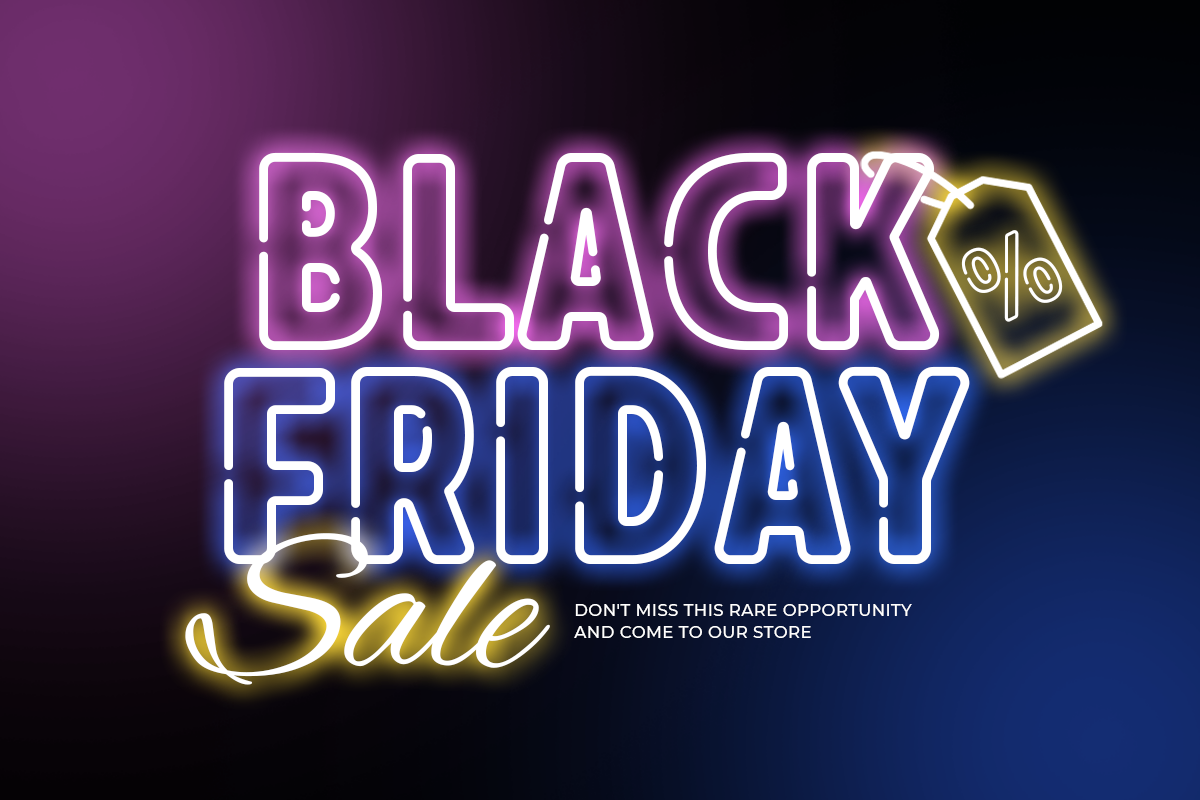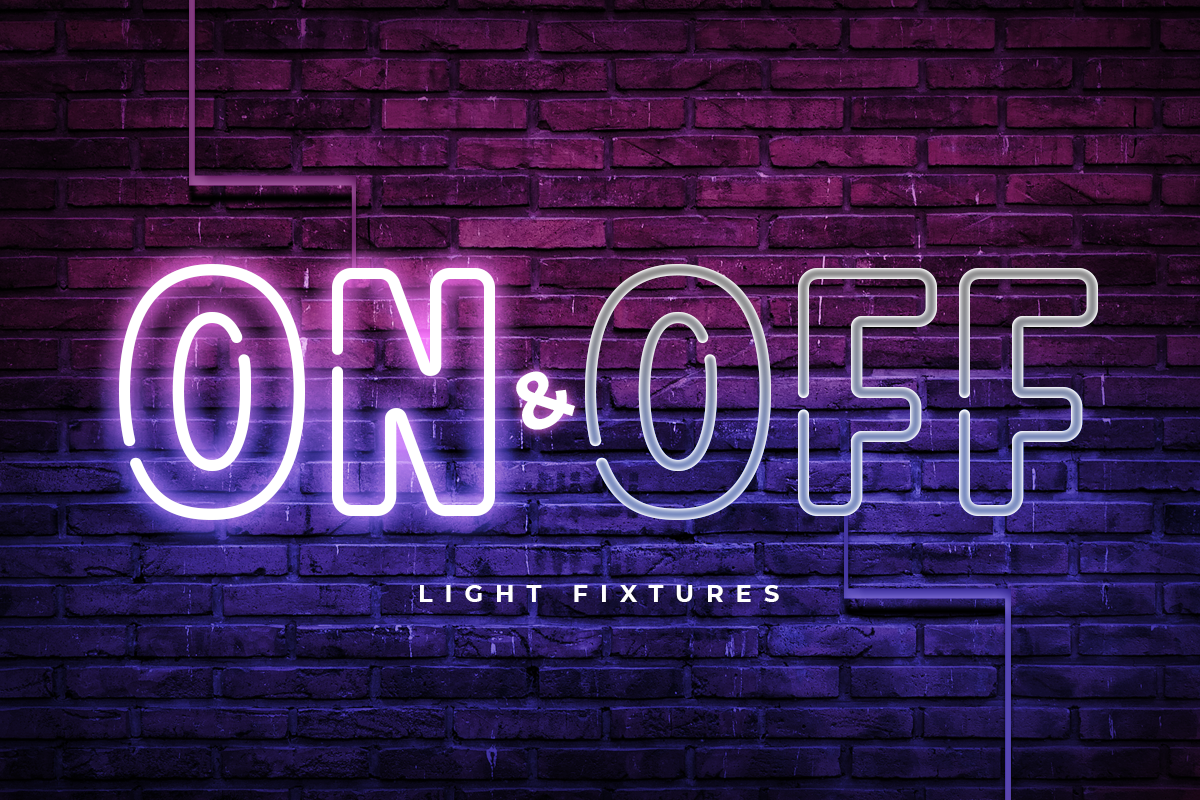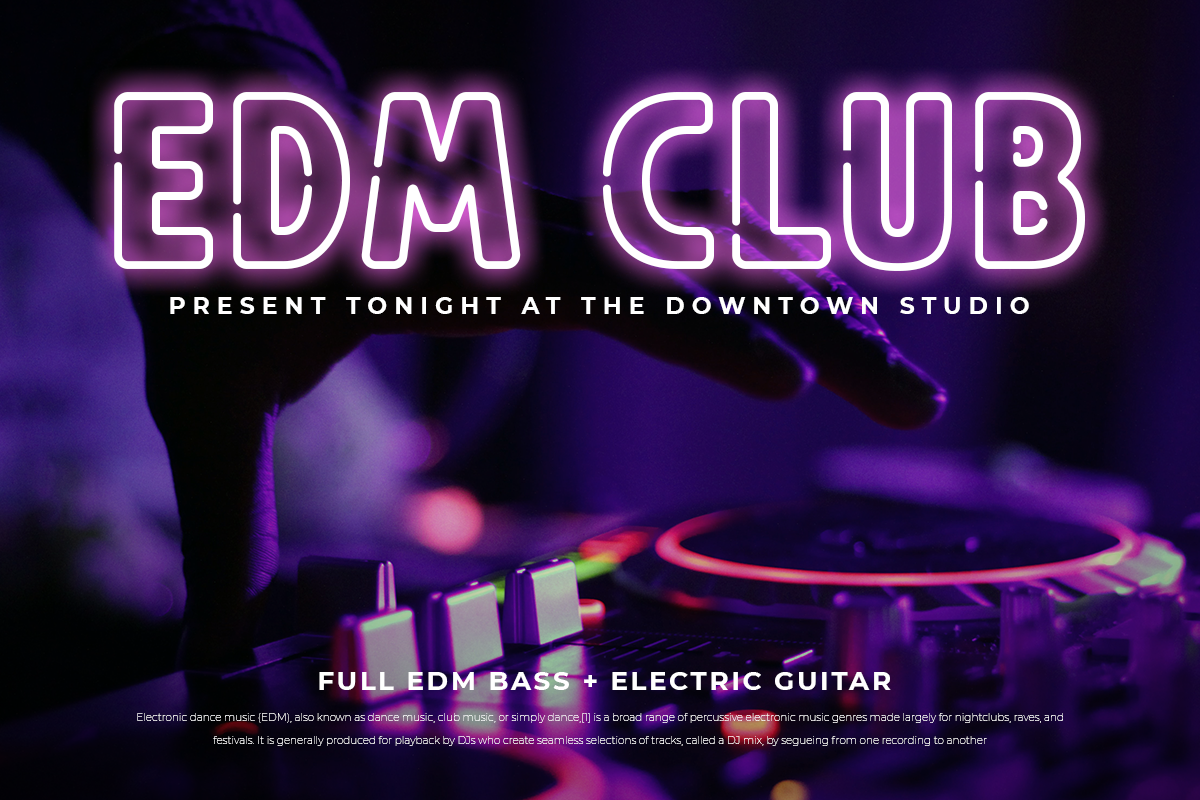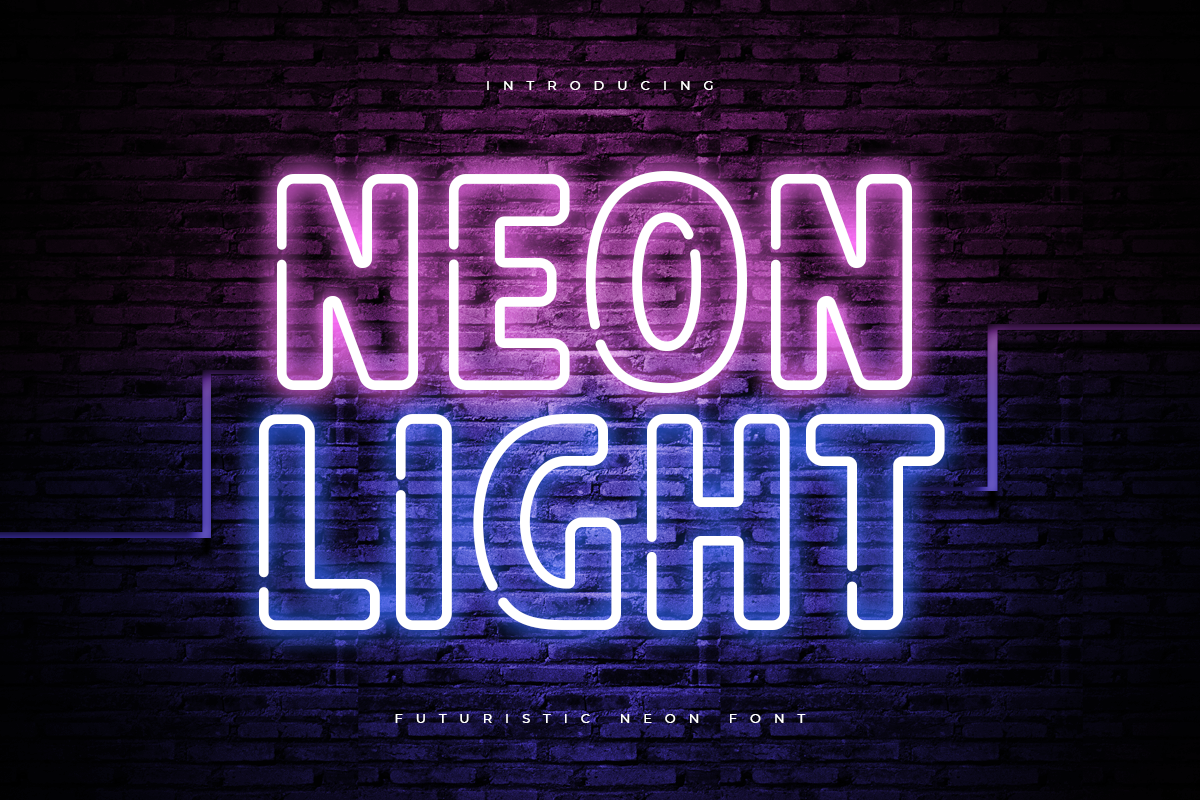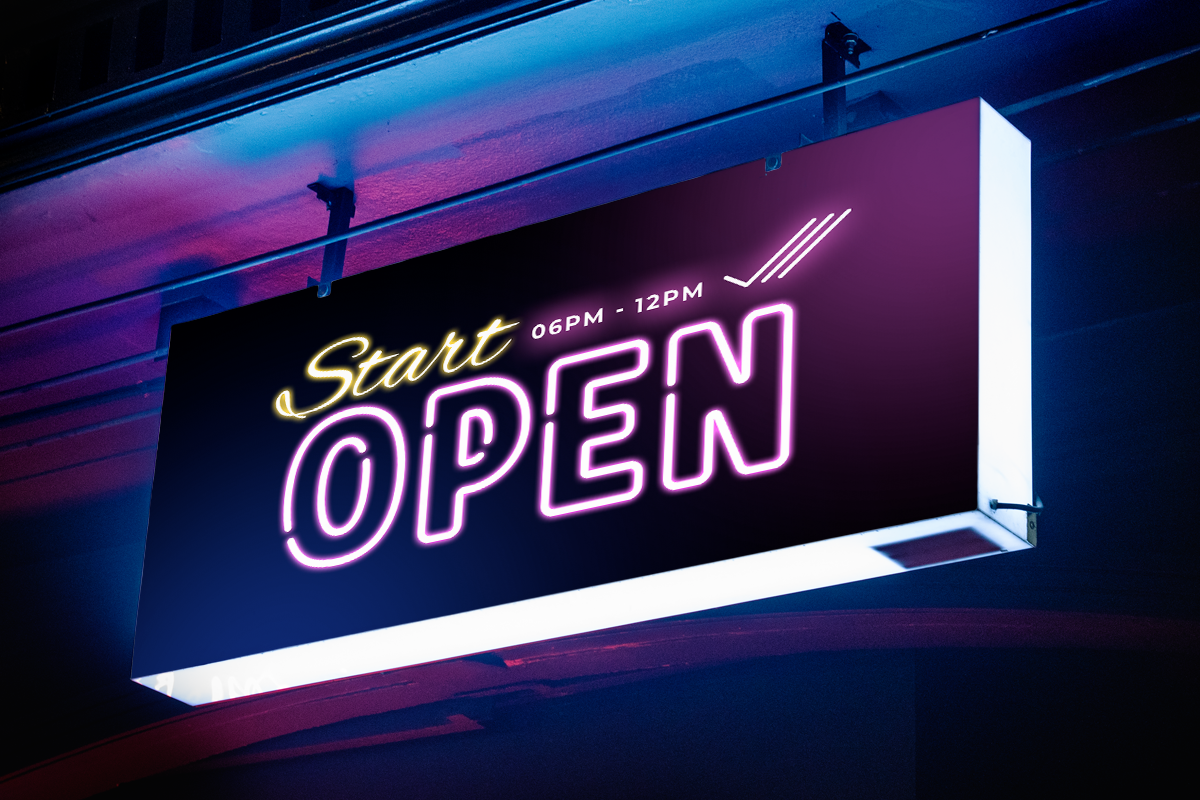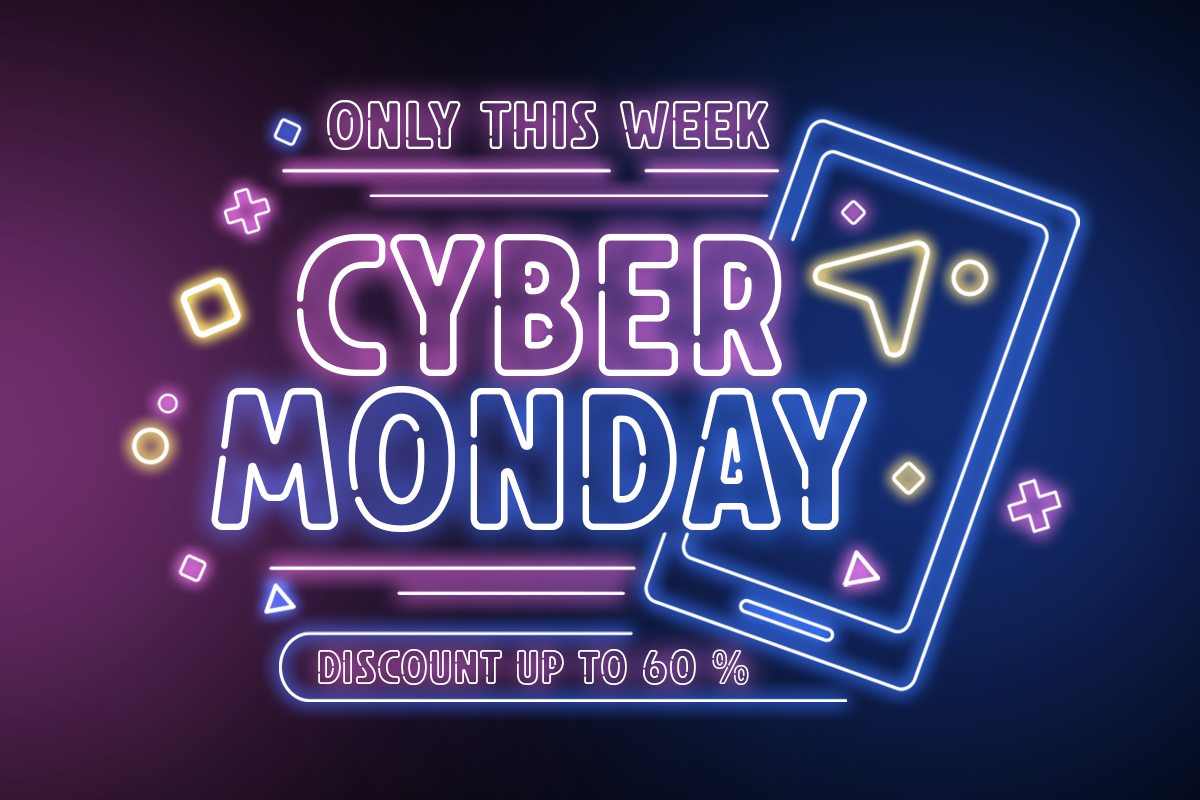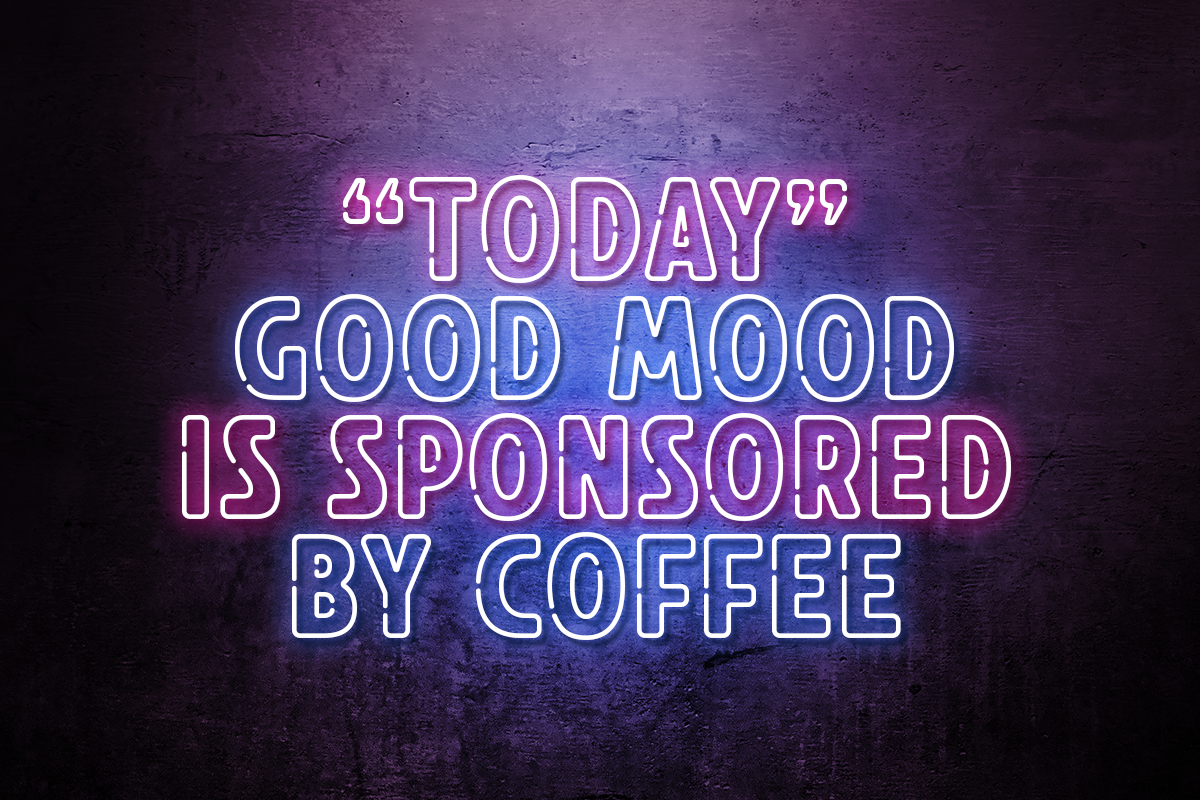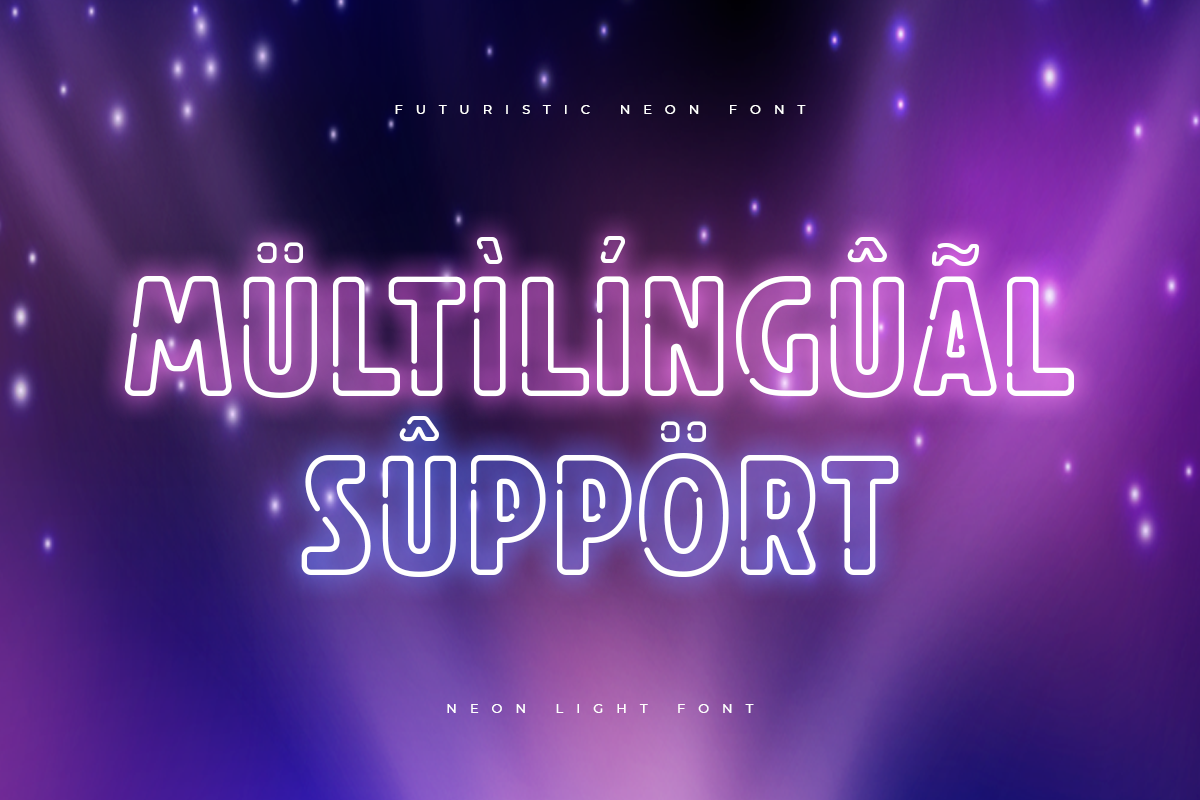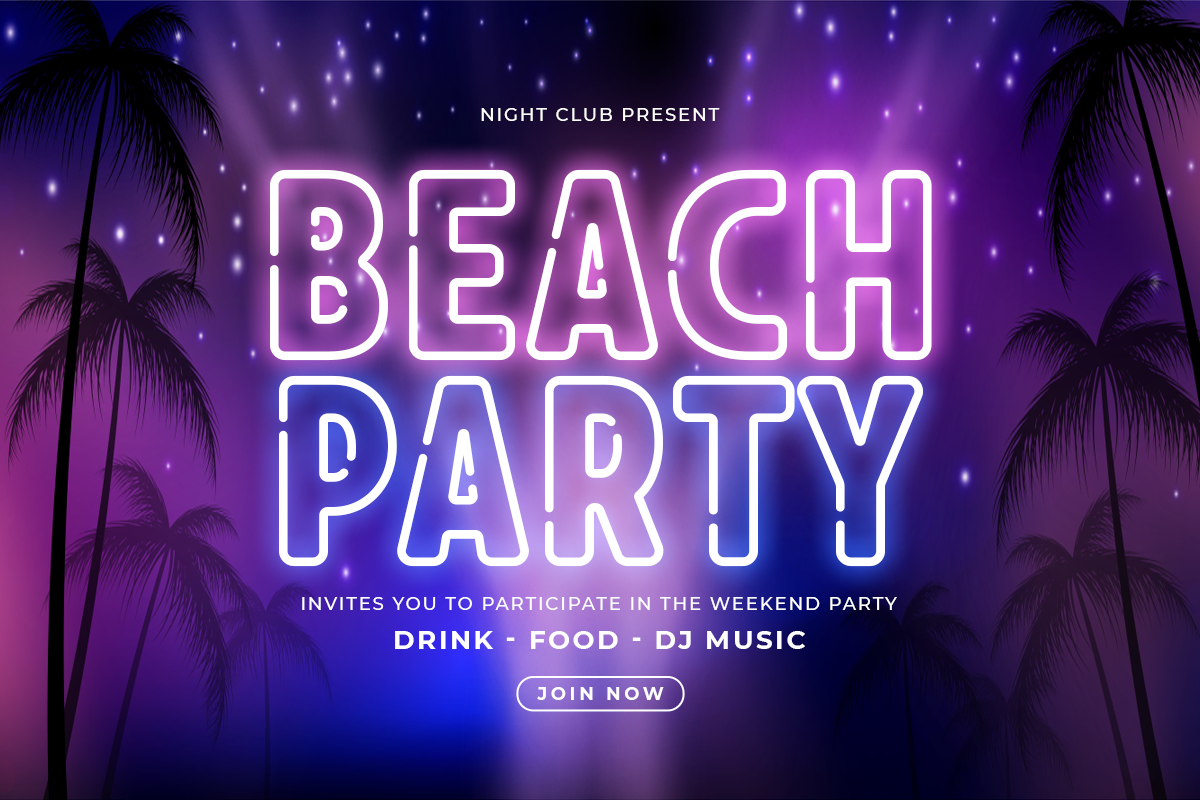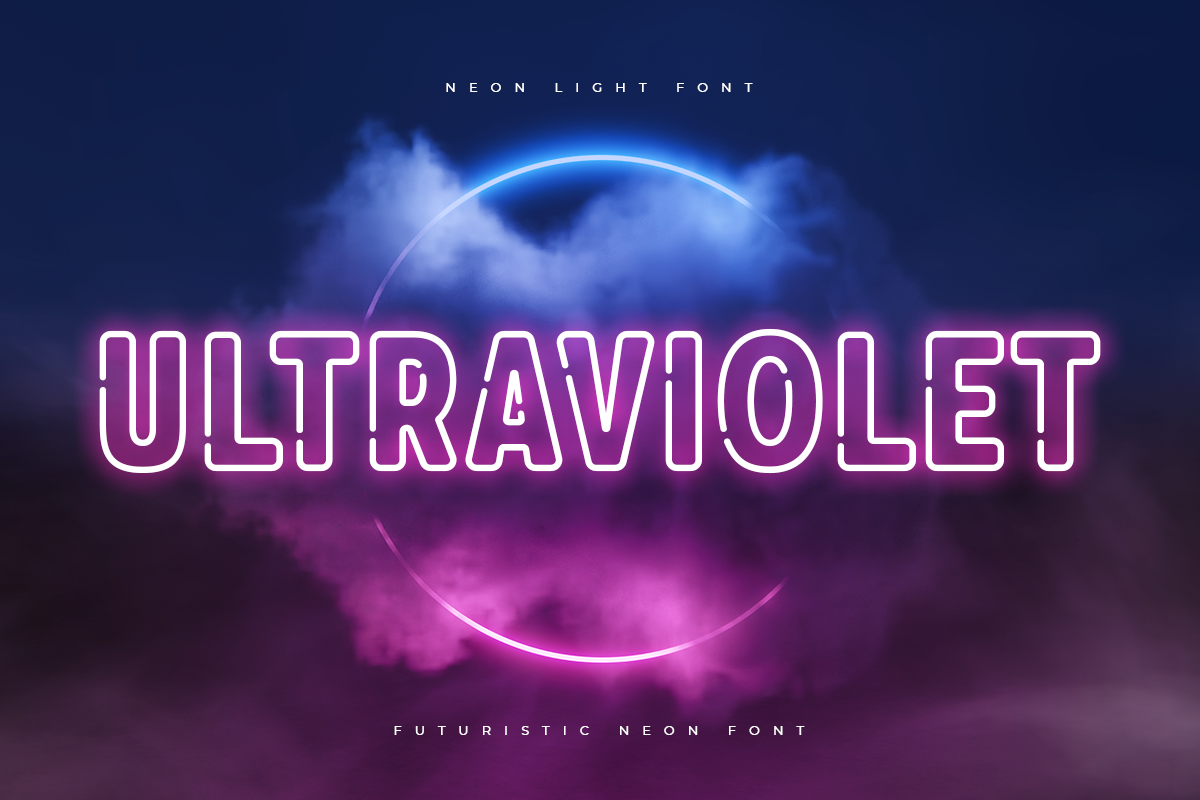
Neon Light - Futuristic Neon Font
Neon Light is Futuristic Neon Font with Modern shape make your design look unique and stylish
A new Display Font that we created special for Headline, Title and more stand out typography needs, with extra ligature that will add your variations. It's so perfect to add your style and headline overview. And specially for this font, we crafted for unique style and modern feels so enjoy to create any project that will show your main idea out.